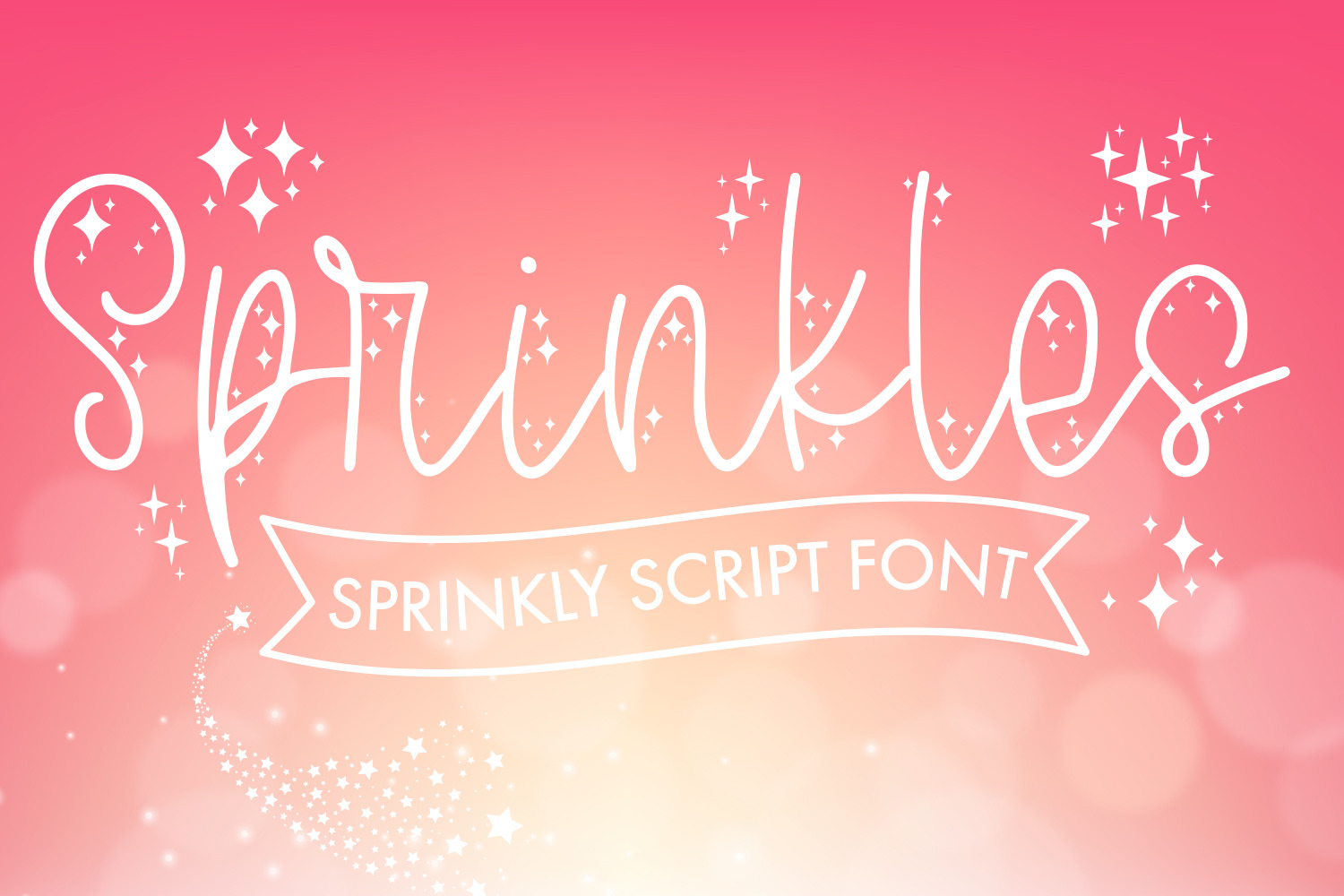
Sprinkles - Script Font With Doodles
Sprinkles - Sprinkly Script Font With Doodles
Introducing 'Sprinkles, a delightful handwritten script font that adds a sprinkle of magic to your designs! Stand out with its unique feature: one set of letters adorned with sweet sprinkles around them. Plus, enjoy FREE doodles to complement your creations! Unleash your creativity with 'Sprinkles' today.
Sprinkles - Comes with Uppercase A-Z and lowercase a-z letters, 0-9 numbers, stylistic alternates, limited punctuation and supports Western European Languages
Sprinkles Doodles - 50+ Doodles